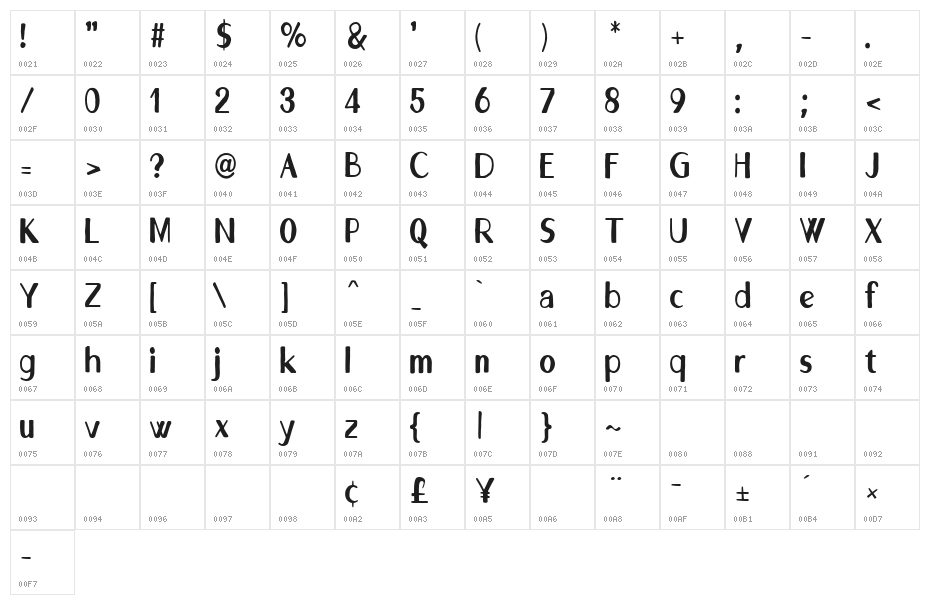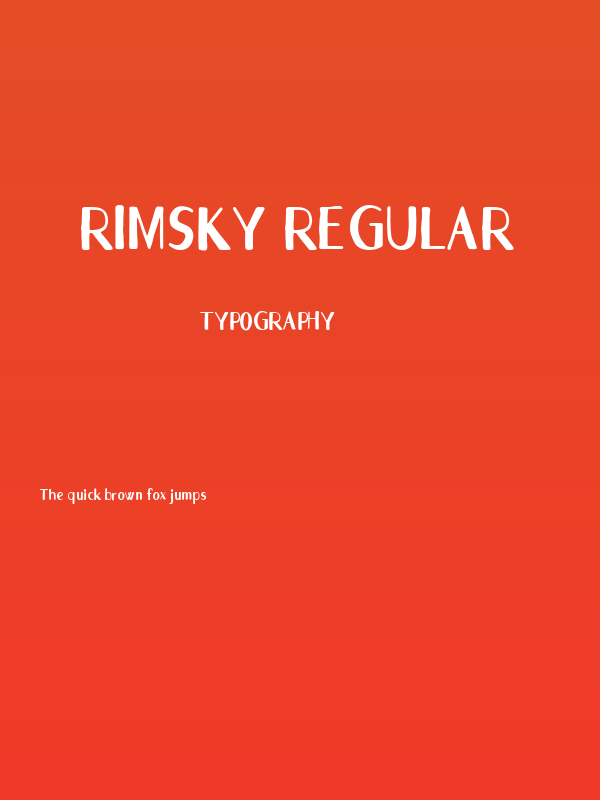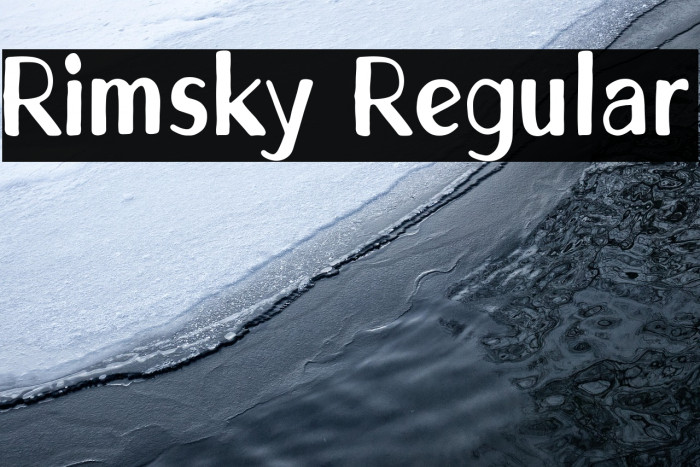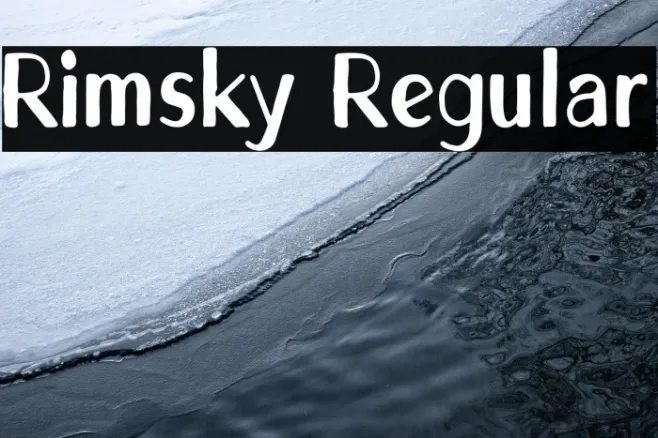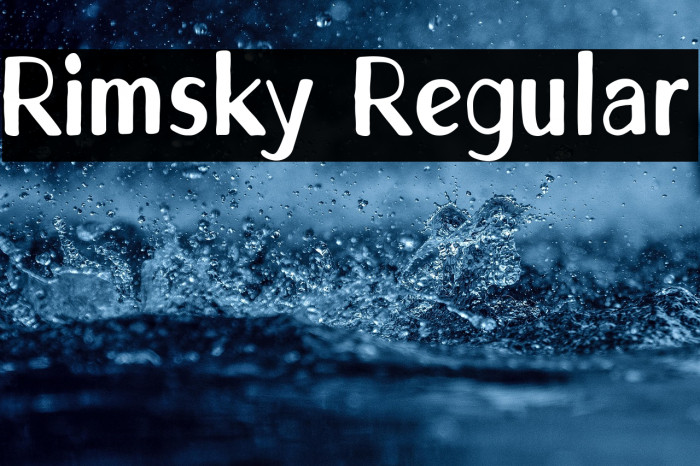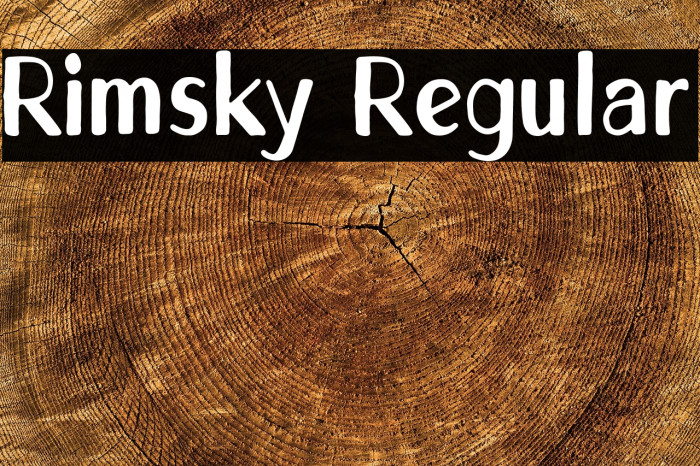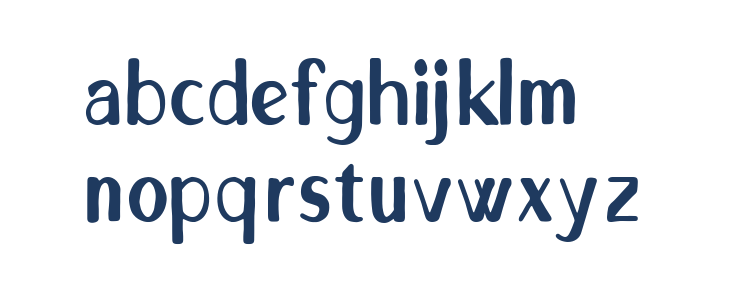
Rimsky Regular Font
Rimsky Regular Description
This font features a playful and slightly irregular style, giving it a hand-drawn appearance. The characters are bold with a consistent stroke width, contributing to a strong visual impact. The uppercase letters are tall and slightly narrow, while the lowercase letters maintain a similar width, creating a harmonious balance. The numbers are bold and clear, making them easily readable. Special characters are designed with the same playful style, ensuring consistency across all glyphs. This font's unique character makes it suitable for projects that require a touch of whimsy and creativity.
| Proposed Projects | Ideal for children's books, creative posters, and playful branding projects. |